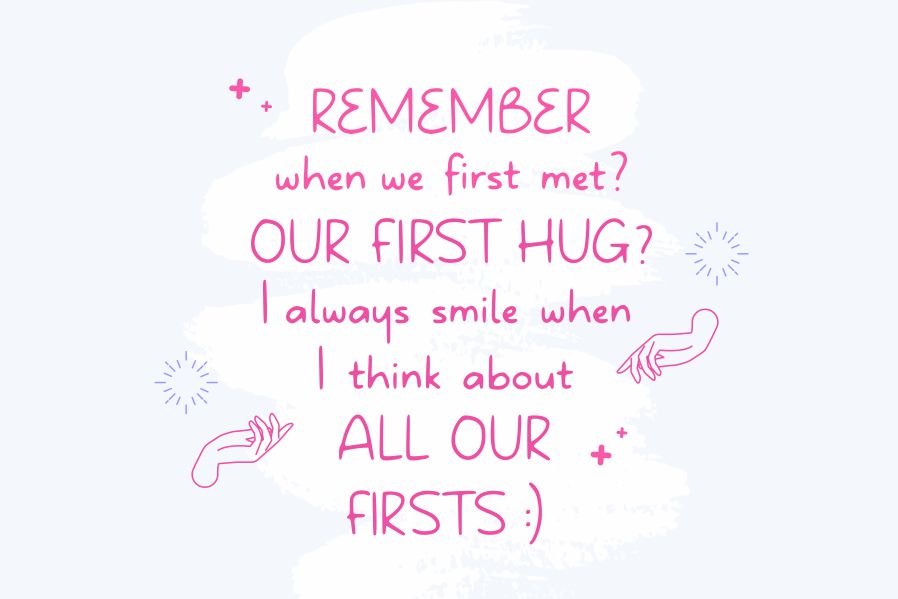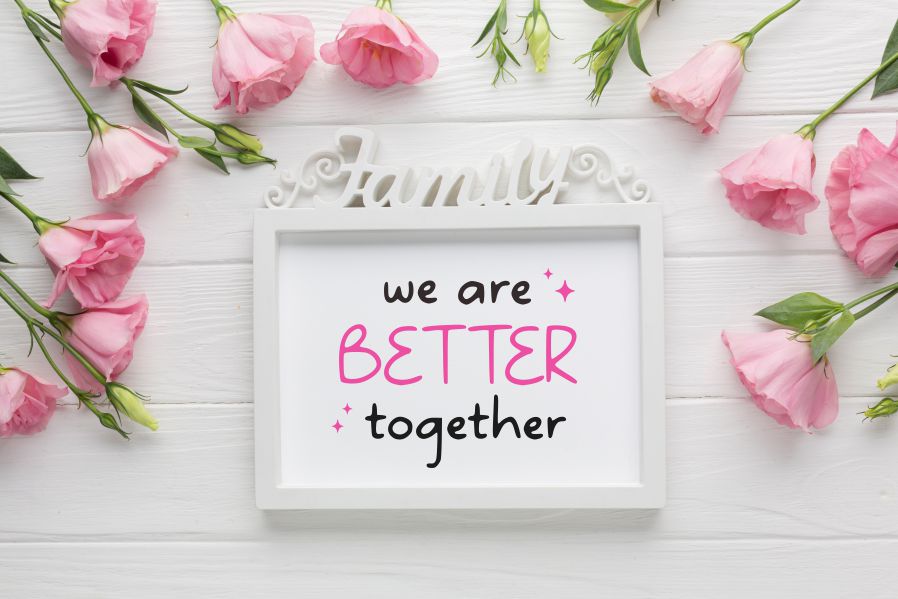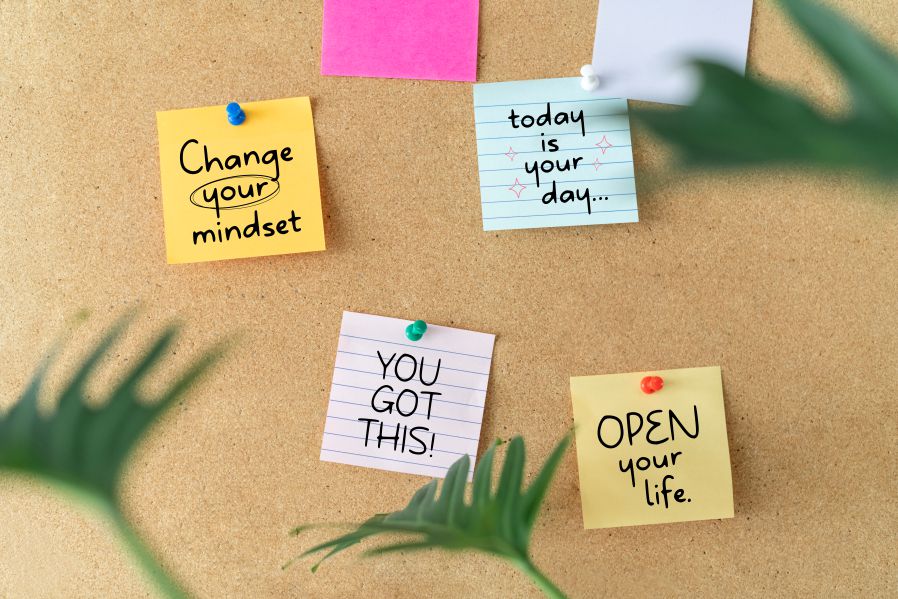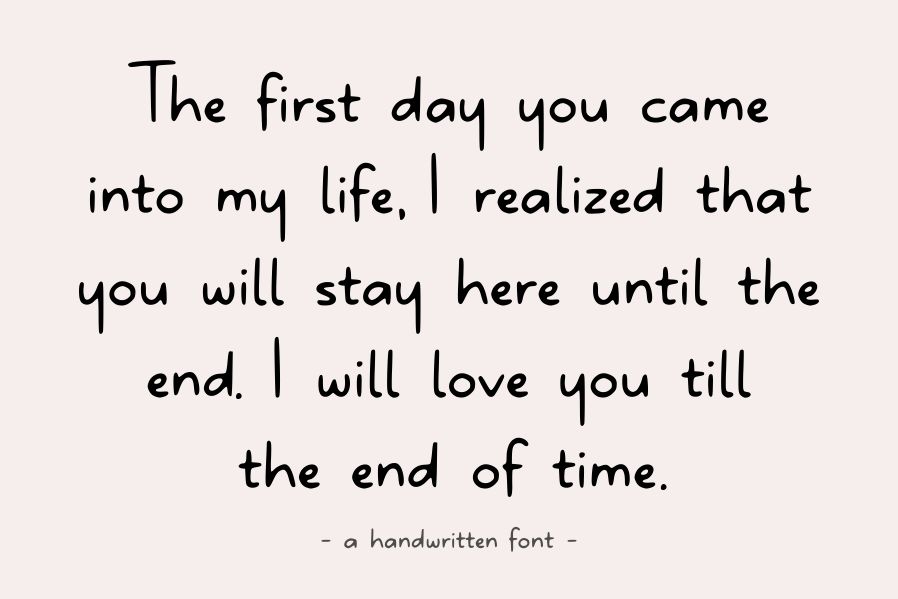
Brodychild Font
Brodychild Display Font
This is a handwritten font. Brodychild is perfect for product packaging, branding project, megazine, social media, wedding, or just used to express words above the background.